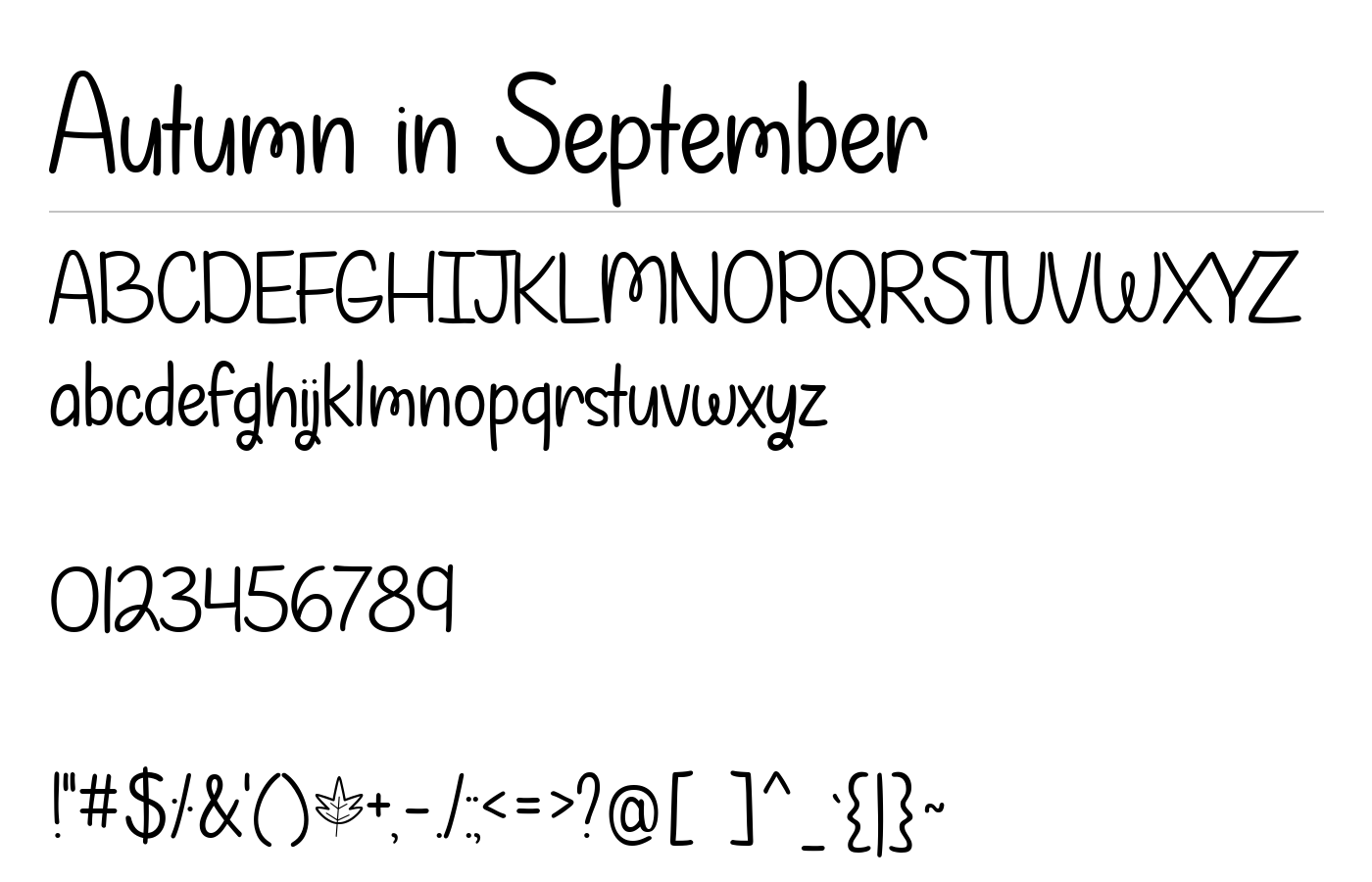
Autumn in September is a charming and playful handwritten sans serif font with a light weight and a tall, slightly narrow structure. Its whimsical letterforms and casual strokes evoke a friendly and approachable feel, making it perfect for creative projects, children's books, and branding that aims for a personal, warm touch. This font works especially well in headlines, invitations, and informal designs that benefit from a human, hand-crafted look.
Autumn in September Font
About Autumn in September Font